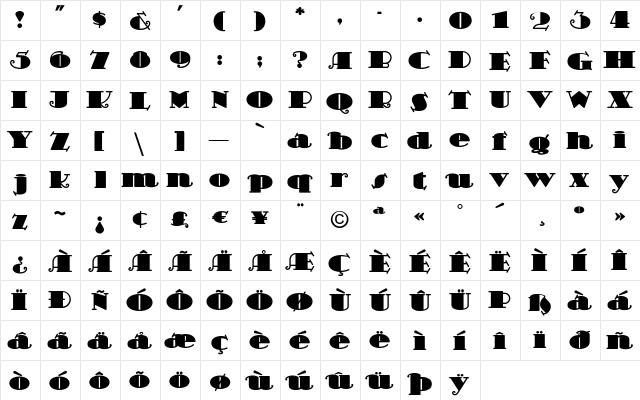
ScramGravy Regular
Design Context for ScramGravy Typeface
ScramGravy is a composed and adaptable typeface that performs quietly and consistently across a wide range of design contexts.